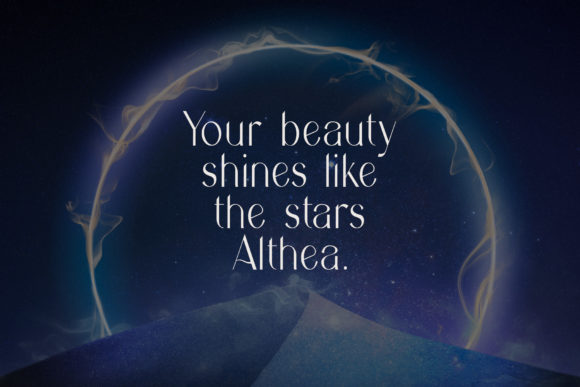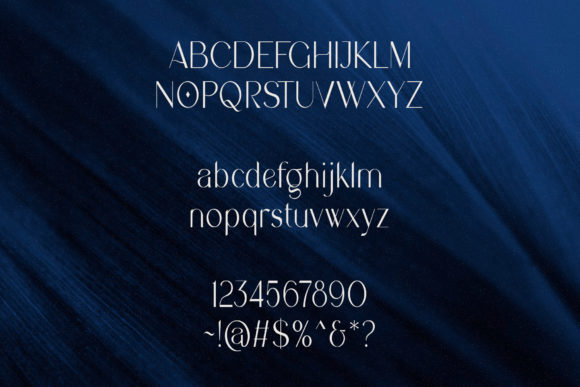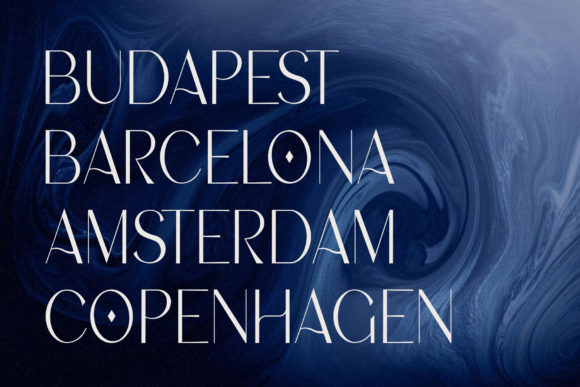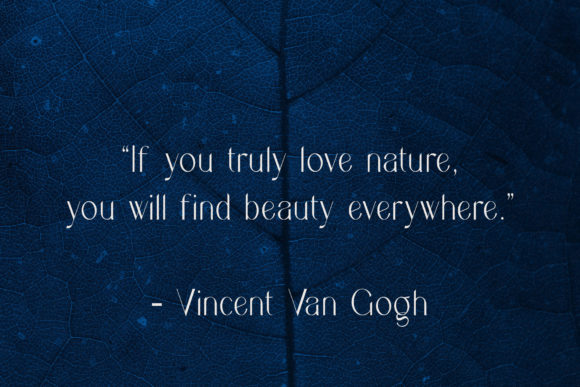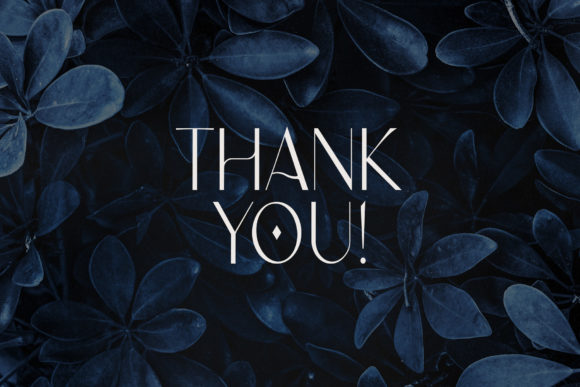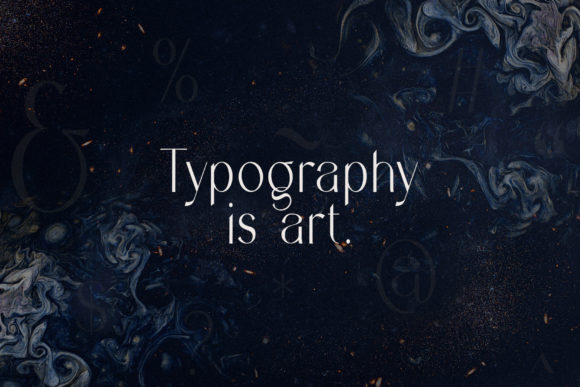
Introducing Althea Font: Elevate Your Designs with Modern Elegance
In the world of typography, fonts play a crucial role in conveying the tone and aesthetic of a design. For designers and crafters seeking a modern and elegant sans serif font, Althea Font is an excellent choice. With its sharp angles and clean lines, Althea is perfect for a wide range of applications, from branding and packaging to invitations, quotes, labels, posters, social media, magazines, and more.
What Makes Althea Font Stand Out?
Althea Font is a versatile and sophisticated typeface that can instantly elevate your designs. Its modern sans serif style ensures that your work looks fresh and contemporary, while its elegance makes it suitable for high-end branding and luxury projects. The font’s sharp angles add a unique touch, setting it apart from more traditional fonts and giving your designs a distinctive look.
Perfect for Fashion Designs
For fashion designers, Althea Font is a dream come true. Its clean and unique look makes it ideal for creating stunning fashion designs that exude style and sophistication. Whether you’re working on a branding campaign, a fashion magazine, or a social media post, Althea Font can help you create a cohesive and visually appealing aesthetic that resonates with your audience.
Key Features of Althea Font
- Modern Sans Serif Style: Althea Font boasts a sleek and contemporary design that’s perfect for modern brands and designers.
- Elegant and Sophisticated: With its clean lines and sharp angles, Althea exudes elegance and sophistication, making it suitable for high-end projects.
- Versatile: Althea Font can be used for a wide range of applications, from branding and packaging to digital media and print materials.
- Unique Look: The font’s sharp angles give it a distinctive look that sets it apart from other sans serif fonts.
How to Use Althea Font in Your Designs
Althea Font is incredibly versatile and can be used in various design projects. Here are some ideas to get you started:
- Branding: Use Althea Font to create a modern and elegant brand identity that reflects your company’s values and aesthetic.
- Packaging: Add a touch of sophistication to your product packaging with Althea Font.
- Invitations: Create stunning invitations for special occasions, such as weddings, parties, or corporate events.
- Social Media: Use Althea Font to create engaging social media posts that stand out from the crowd.
- Magazines and Posters: Althea Font is perfect for creating visually appealing magazine layouts and posters that grab attention.
Tips for Pairing Althea Font with Other Fonts
While Althea Font is stunning on its own, pairing it with other fonts can create a unique and visually appealing aesthetic. Here are some tips for pairing Althea Font with other fonts:
- Contrast with Script Fonts: Pair Althea Font with a elegant script font to create a beautiful contrast between modern and classic styles.
- Combine with Serif Fonts: Mixing Althea Font with a serif font can add depth and interest to your designs.
- Use with Bold Fonts: Pairing Althea Font with a bold font can create a striking contrast that adds visual appeal to your designs.